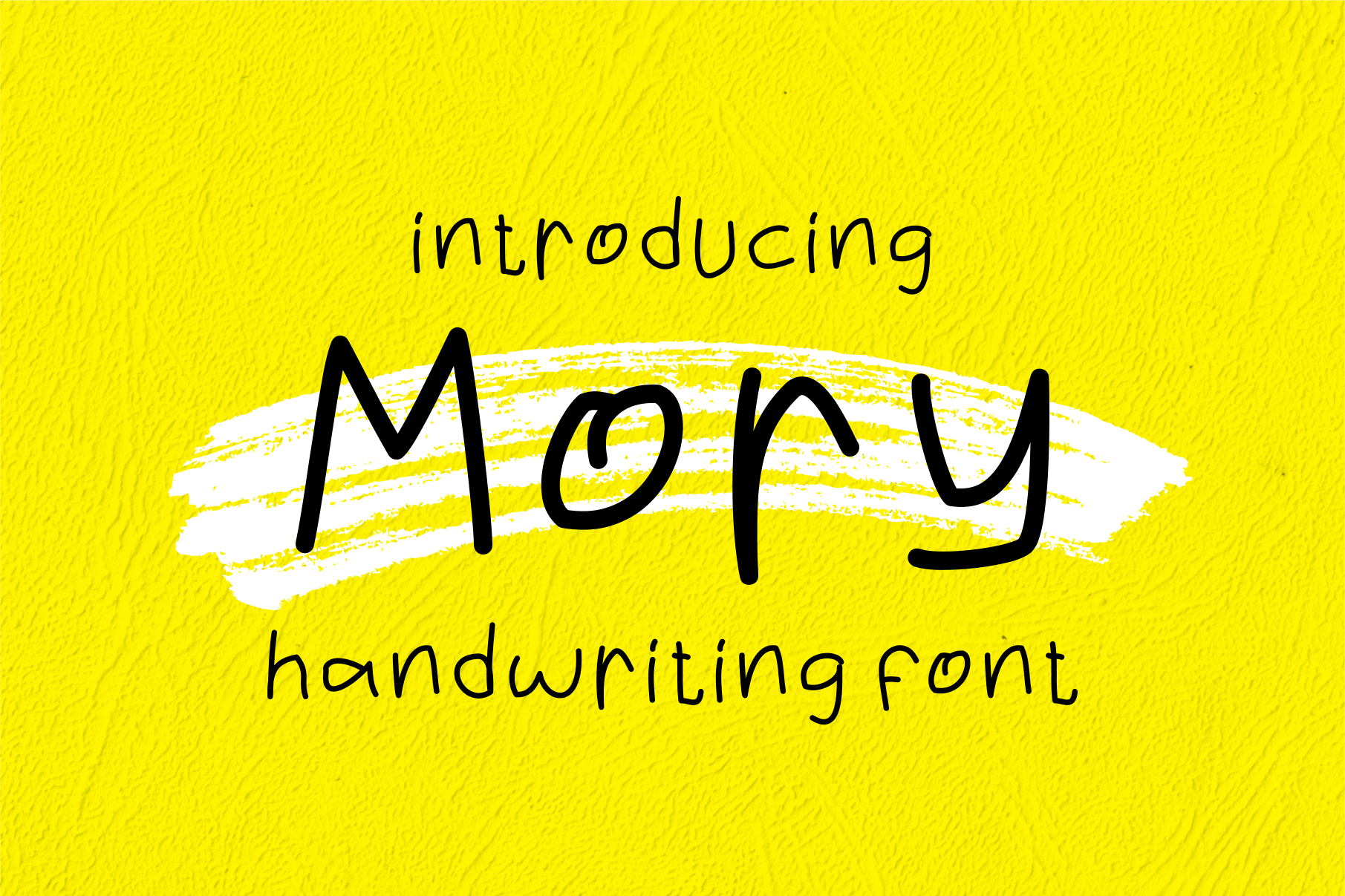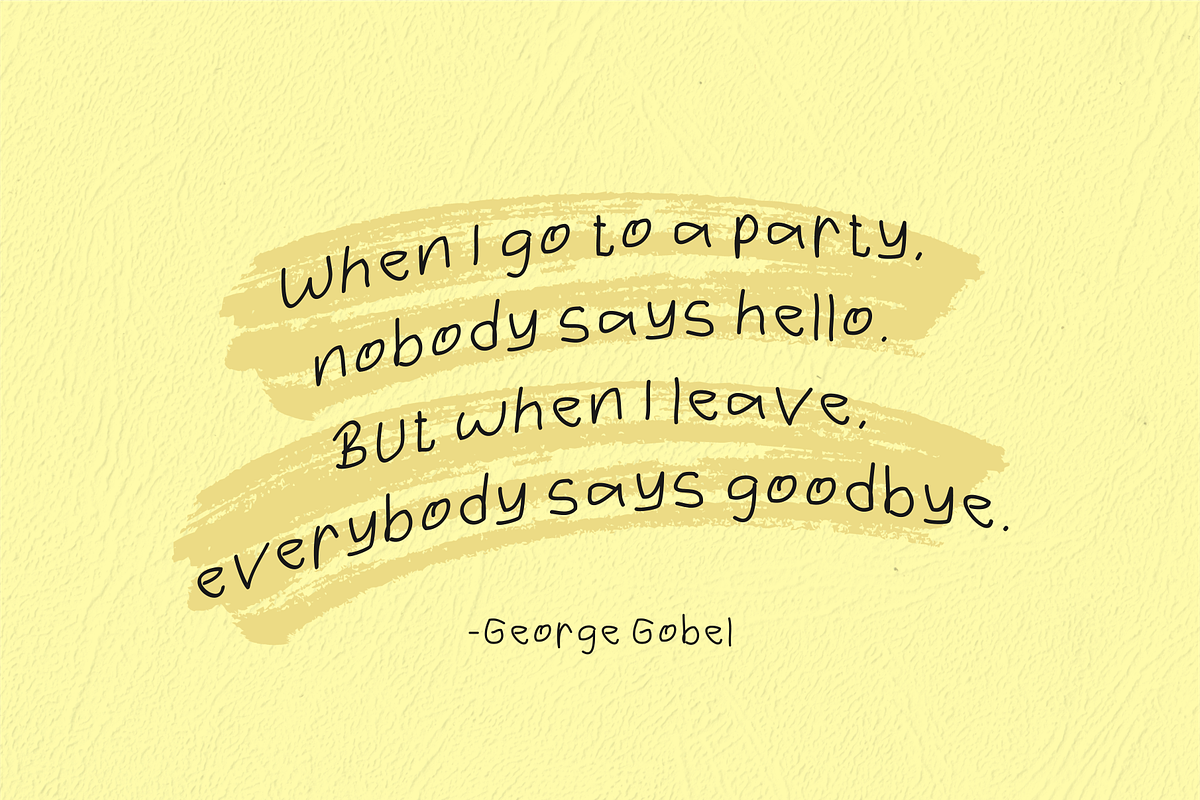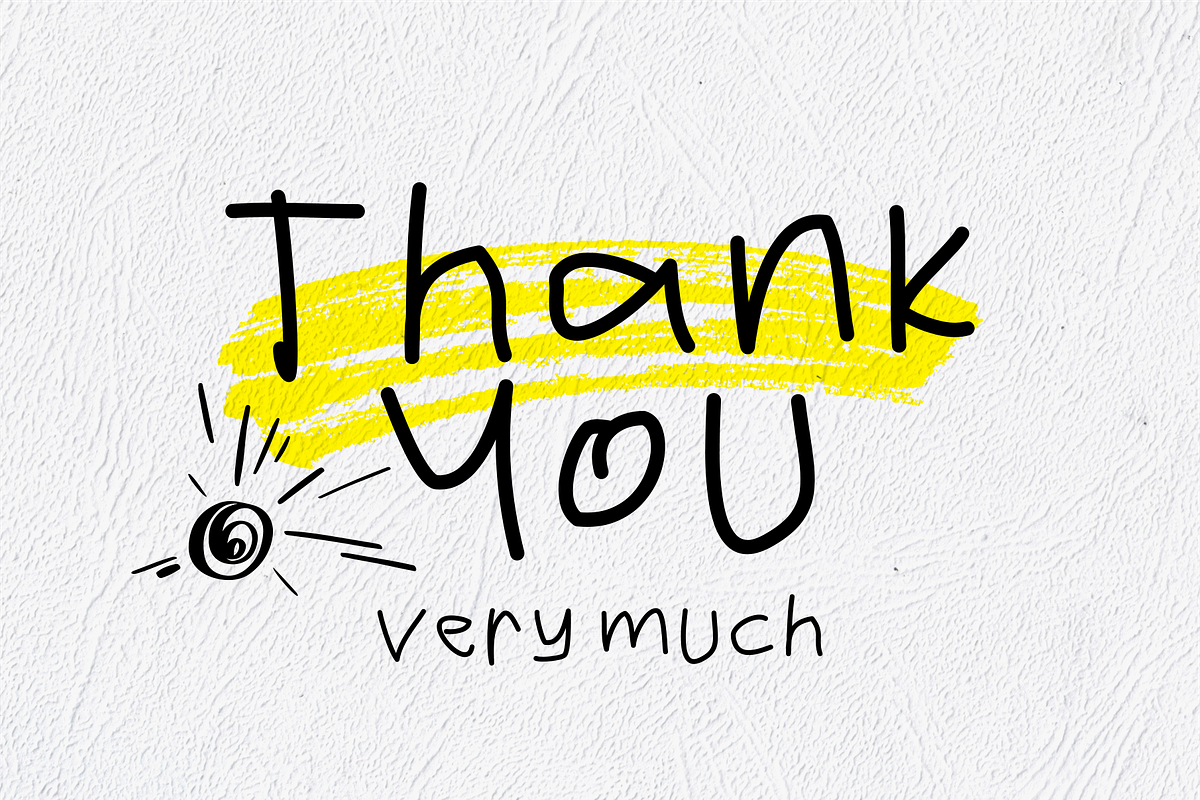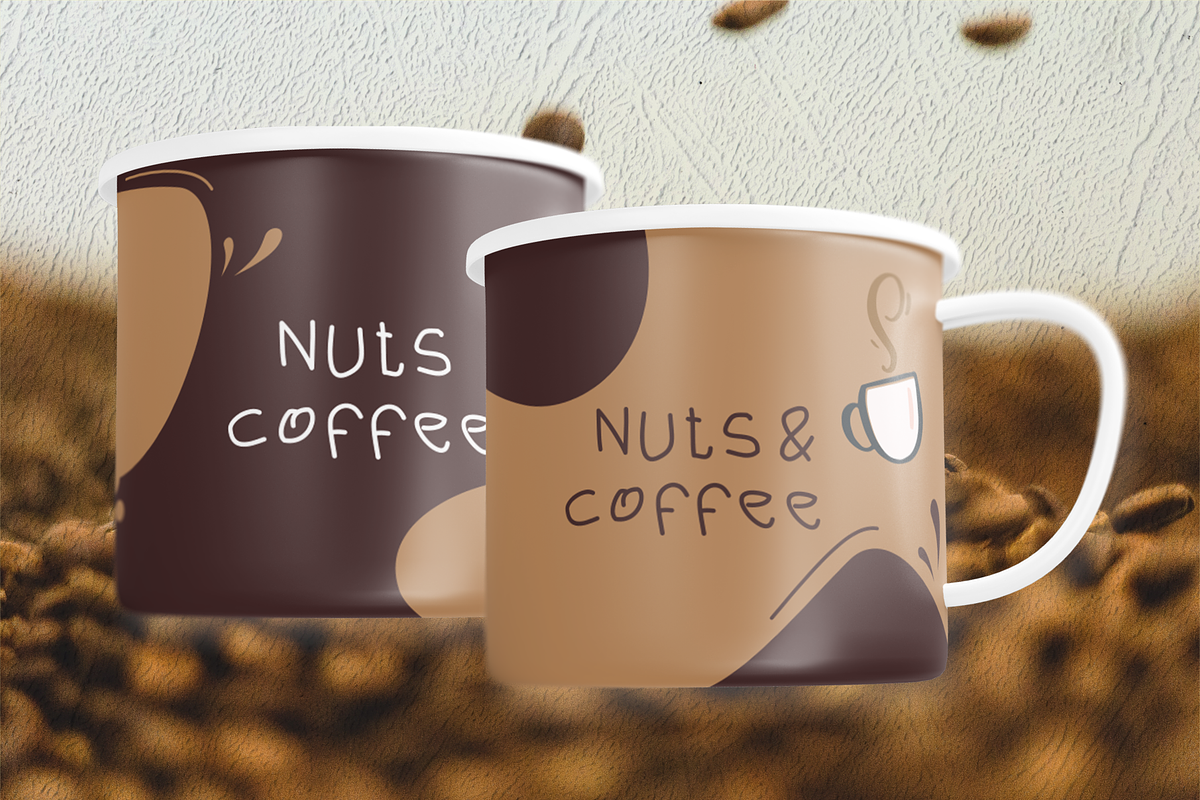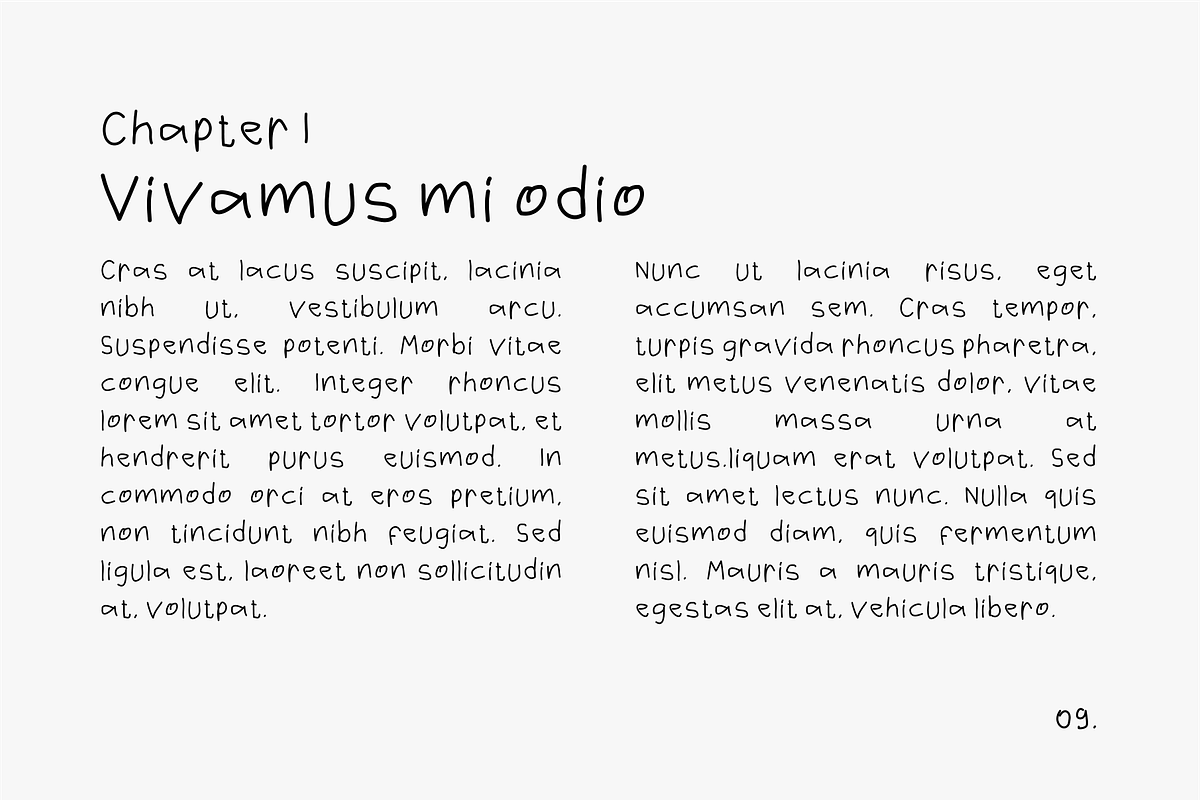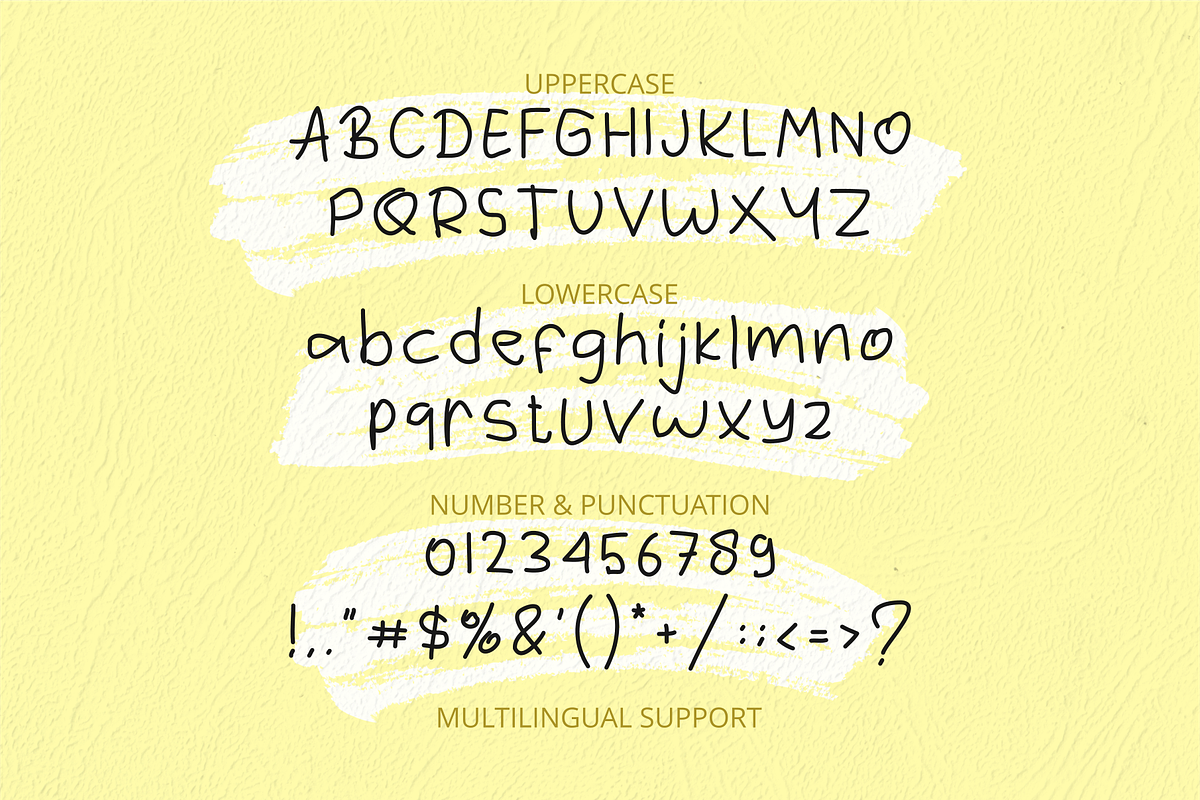
Mory - Kindergarten Font
Mory is a simple, quirky and adaptable handwritten font. Its informal style and casual vibe will make this font a go-to choice for each of the creations that require a relaxed touch.